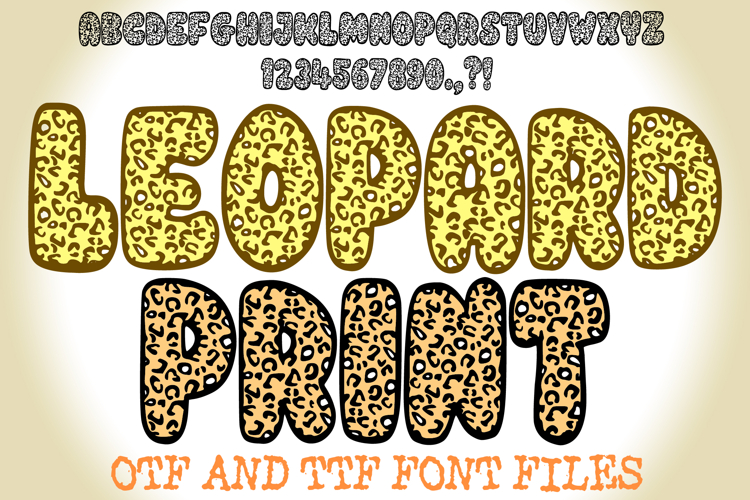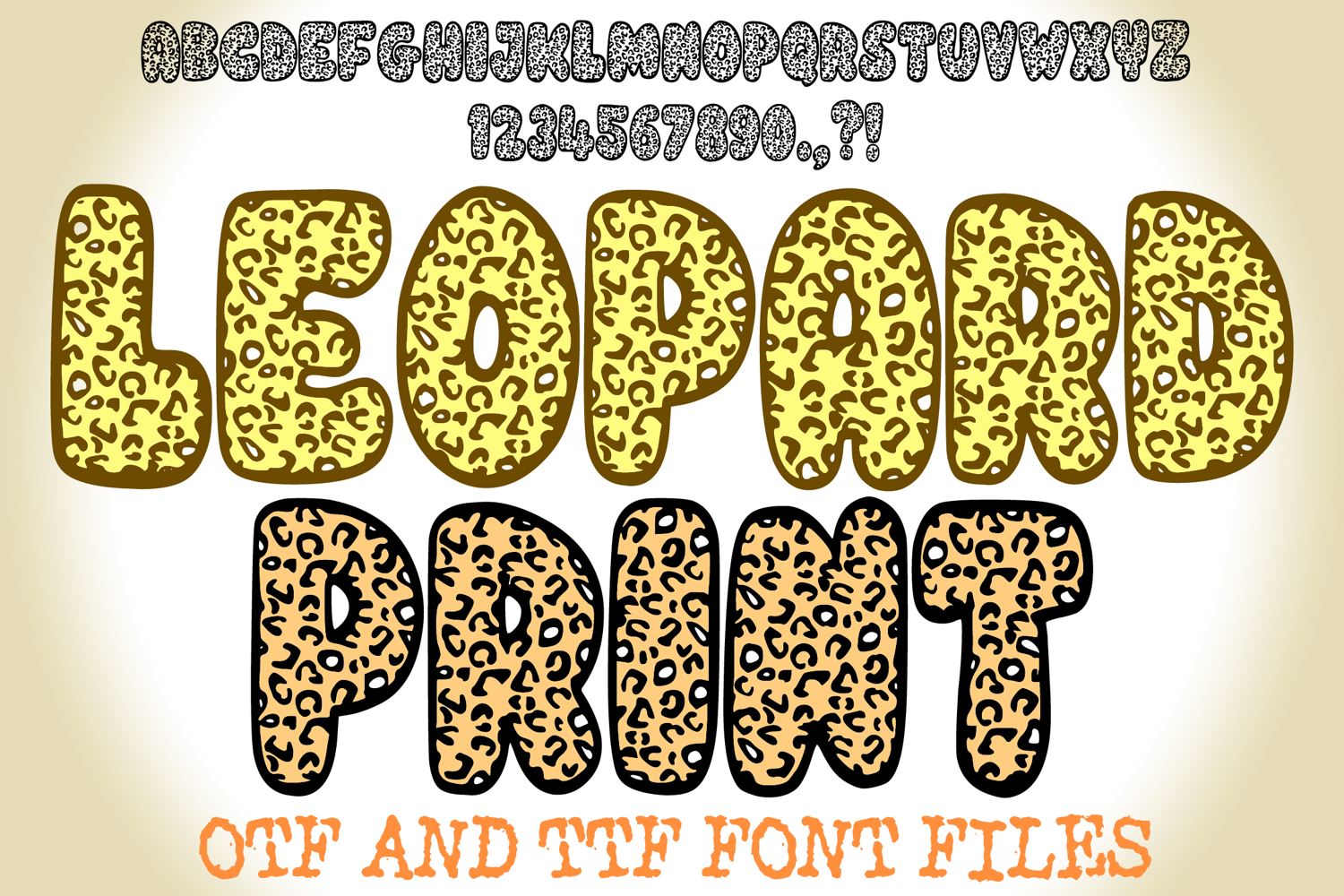
Leopard Print Animal Handwriting Alphabet Lettering ABC Text
Unleash your fierce and fashionable side with Leopard Print Font! This bold and captivating typeface is designed to bring the iconic, untamed elegance of leopard spots directly to your text. It's more than just a font; it's a statement of style and wild sophistication, perfect for projects that demand a touch of exotic flair, unique texture, and undeniable visual impact!
Each character in Leopard Print Font features a plump, rounded, yet powerful outline, with its interior meticulously filled with an authentic and intricate leopard spot pattern. This unique and eye-catching visual effect makes it an ideal choice for fashion branding, boutique signage, safari-themed events, children's apparel, vibrant social media graphics, wildlife conservation campaigns, or any design calling for a unique blend of animal charm and trendy sophistication.
Whether you're creating glamorous event promotions, designing daring product packaging, crafting exciting social media posts for fashion or lifestyle brands, or adding an adventurous touch to digital art, this font will bring an undeniable sense of fun, originality, and a vibrant, energetic aesthetic to your work. Its clear yet playful forms ensure readability while delivering a memorable visual experience.
If you're looking to infuse your designs with a sense of playful adventure, fierce style, charming texture, and an undeniable touch of the wild, Leopard Print Font is your ultimate tool. Spot your next great design!